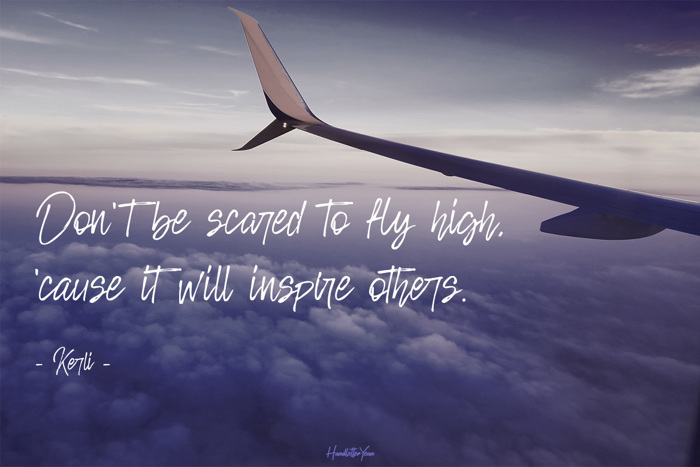
Rosianne Font
Rosianne is a bold and unique handwritten font with an elegant and classic feel. It will effortlessly turn any creative idea into a stand out.